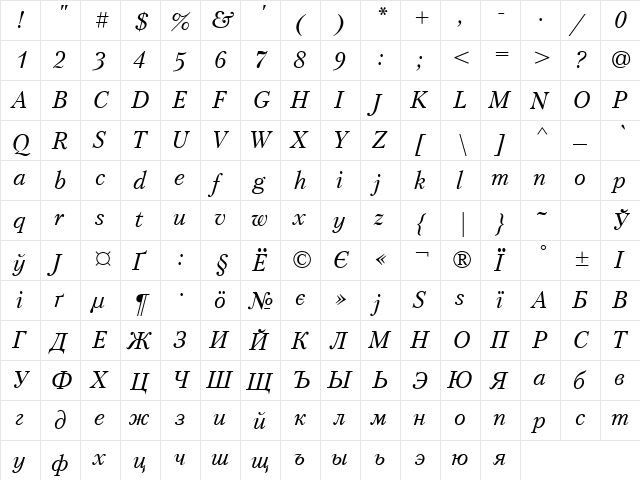
Petersburg Italic Cyrillic
Design Context for Petersburg Typeface
Petersburg takes a measured approach to typography — its balanced proportions and neutral character make it a reliable workhorse for both digital and print work. The dynamic lean of this cut emphasises speed and emphasis in any layout.